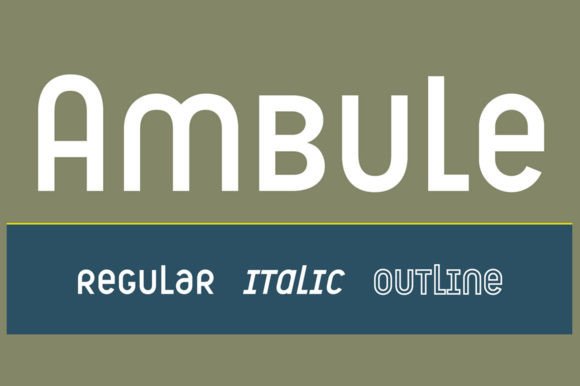
The Birth of Ambule: A Font that Embodies Innovation and Versatility
I still remember the countless hours I spent searching for the perfect font for a client’s branding project. The design brief required a unique blend of modernity and elegance, but every font I tried seemed to fall short. That’s when I stumbled upon the Ambule font, a captivating cap/lowercase hybrid design that effortlessly merged the best of Huxley Vertical and Peignot. In this article, I’ll share my journey with Ambule, its features, and how to make the most of this incredible font.
A Personal Encounter with Ambule
As a designer, I’ve worked on numerous projects that required a distinctive typographic voice. One particular project that comes to mind is a branding campaign for a trendy boutique hotel. The client wanted a font that exuded sophistication and playfulness simultaneously. After a thorough search, I discovered Ambule, and it instantly resonated with me. Its unique blend of stylized elements, balanced proportions, and refined aesthetics made it an instant favorite.
Unpacking Ambule: What I Love and What to Watch Out For
• ✅ Unique Design: Ambule’s fusion of Huxley Vertical and Peignot results in a visually striking font that’s both modern and elegant.
• ✅ Readability: Ambule’s clean and straightforward design ensures excellent readability across various text and display applications.
• ✅ Versatility: This font shines in both small and large settings, making it perfect for conveying messages in a variety of contexts.
• ✅ OpenType Features: Ambule supports a range of OpenType features, including stylistic alternates and glyphs, giving you creative flexibility.
• ⚠️ Limited Ligatures: Ambule has a limited set of ligatures, which might be a drawback for some users.
• ⚠️ Not Ideal for Body Text: While Ambule is excellent for display text, it might not be the best choice for lengthy body text due to its stylized nature.
The Story Behind Ambule: A Tribute to Innovative Design
Ambule’s creation is a testament to the power of innovative design. By merging the distinct characteristics of Huxley Vertical and Peignot, the designers aimed to craft a font that would push the boundaries of typographic expression. The result is a font that not only looks stunning but also offers a unique voice for designers and brands.
Q: What inspired the creation of Ambule?
A: Ambule was inspired by the fusion of Huxley Vertical and Peignot, two typefaces with distinct characteristics.
Q: Is Ambule suitable for body text?
A: While Ambule is excellent for display text, it might not be the best choice for lengthy body text due to its stylized nature.
Q: Does Ambule support OpenType features?
A: Yes, Ambule supports a range of OpenType features, including stylistic alternates and glyphs.